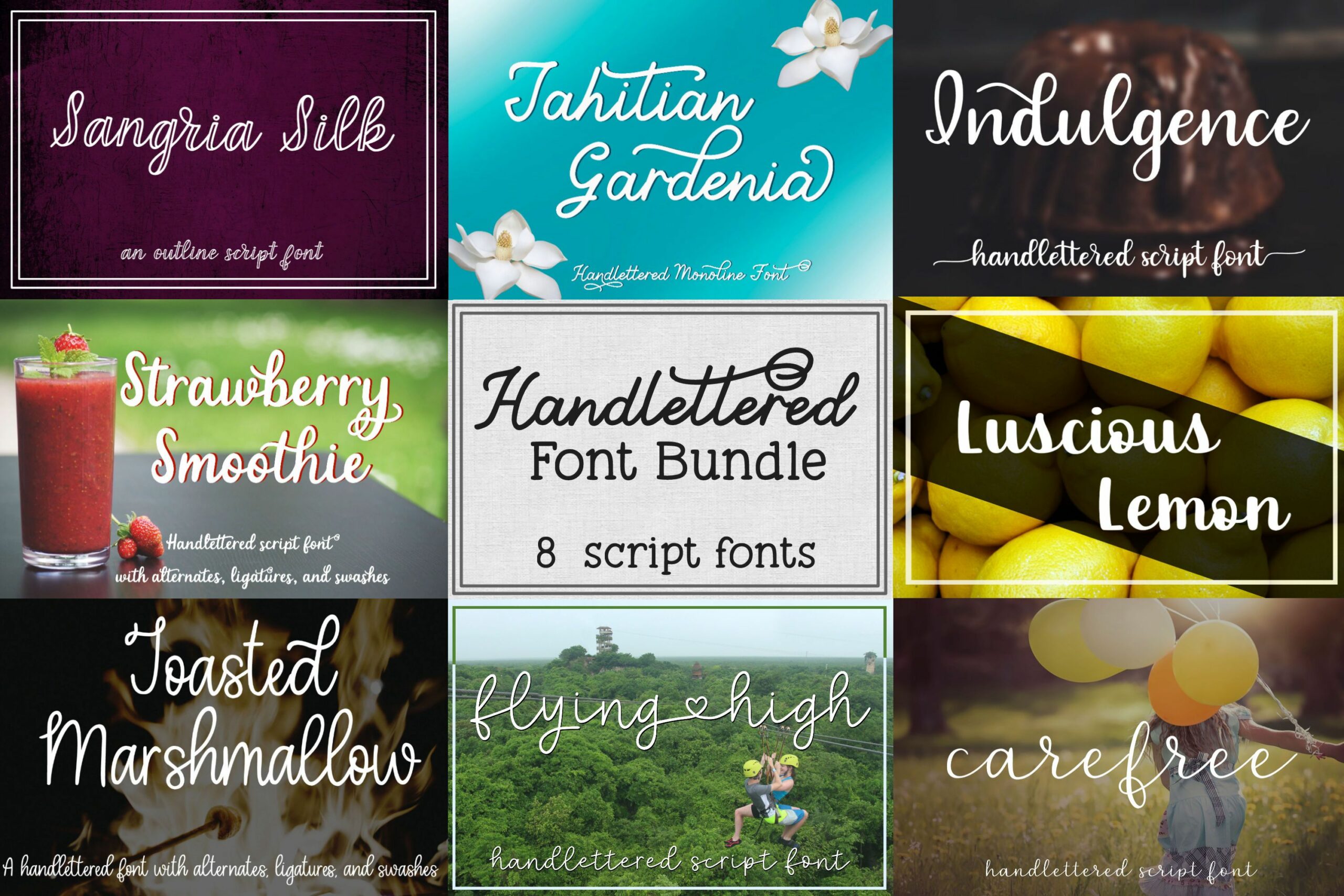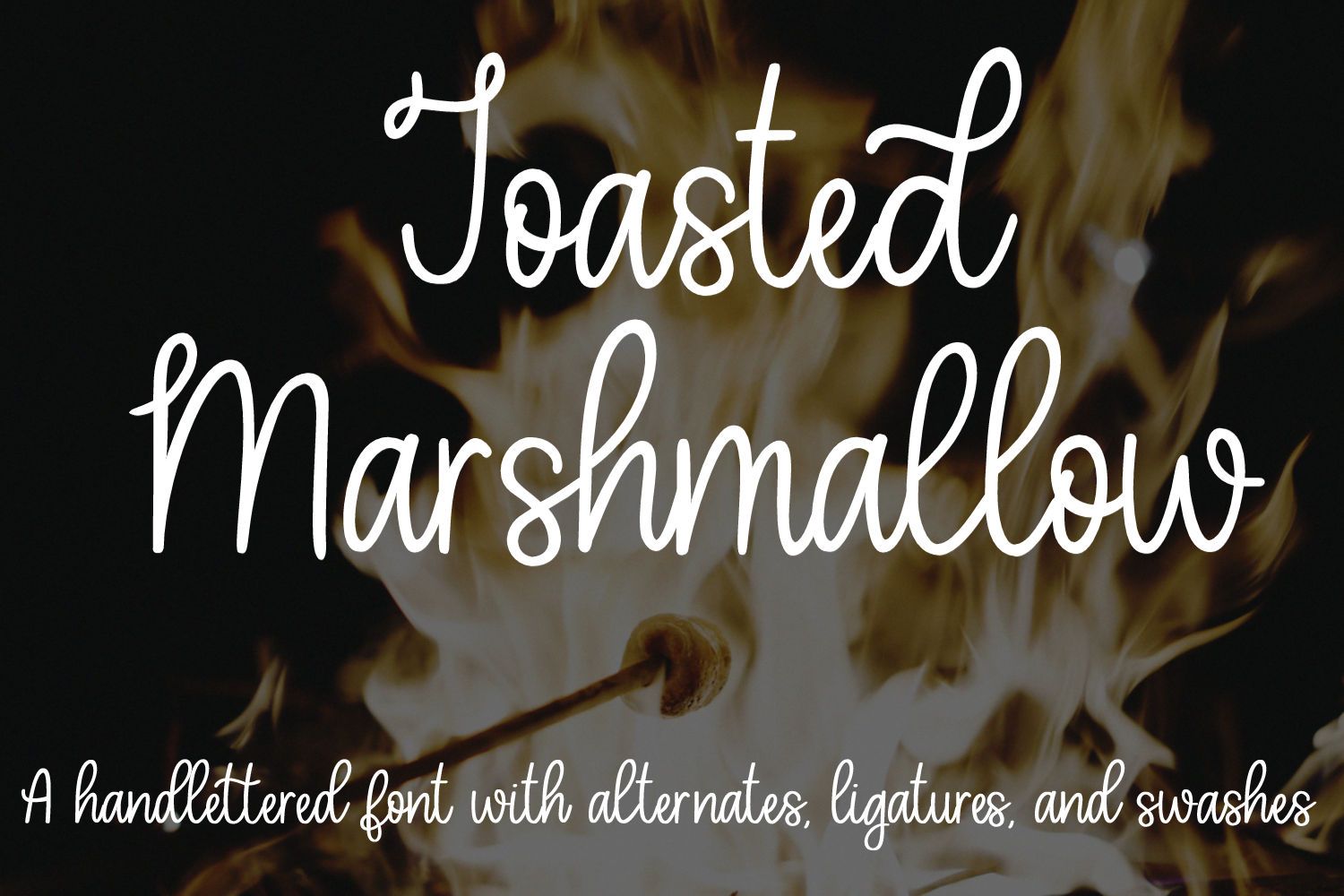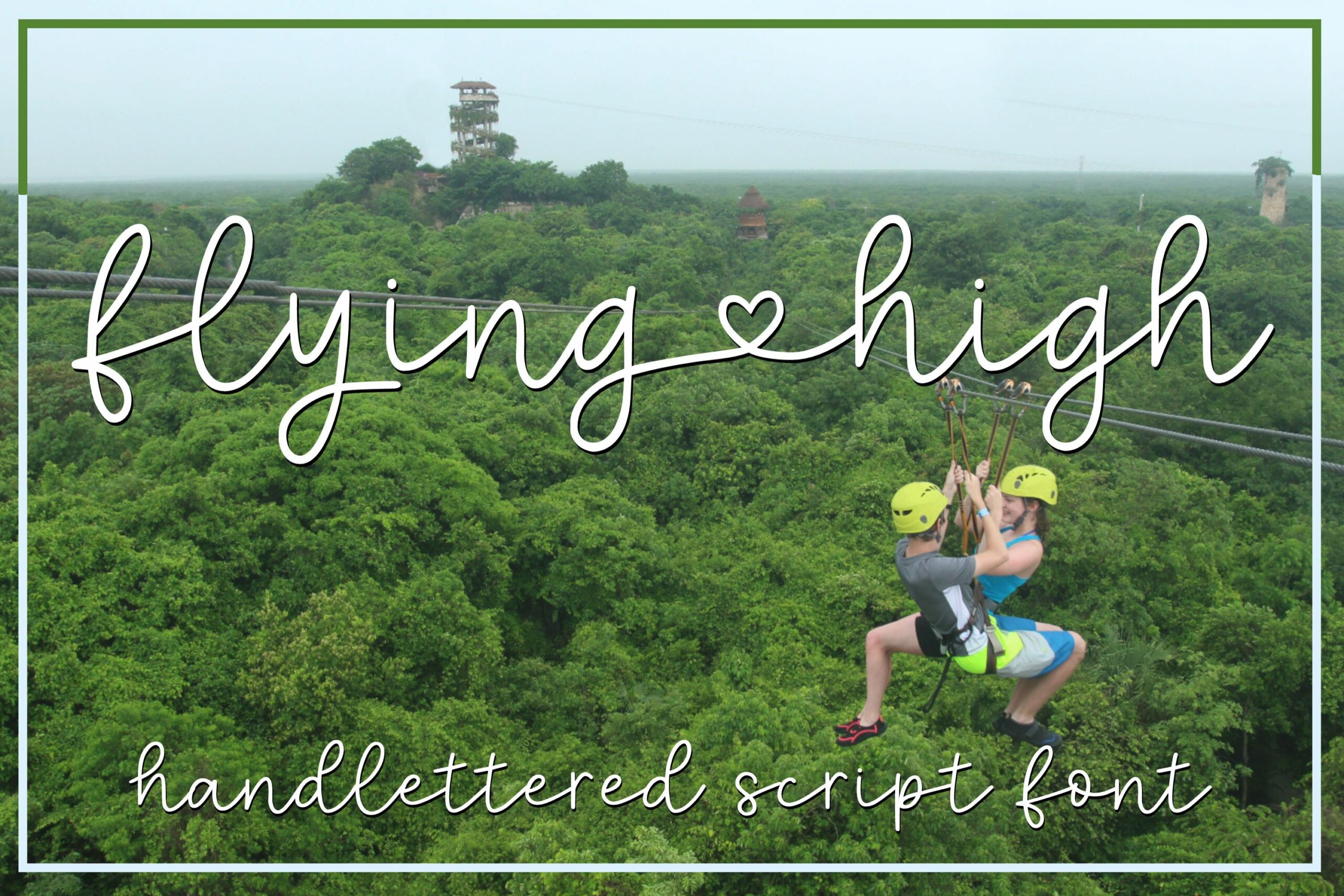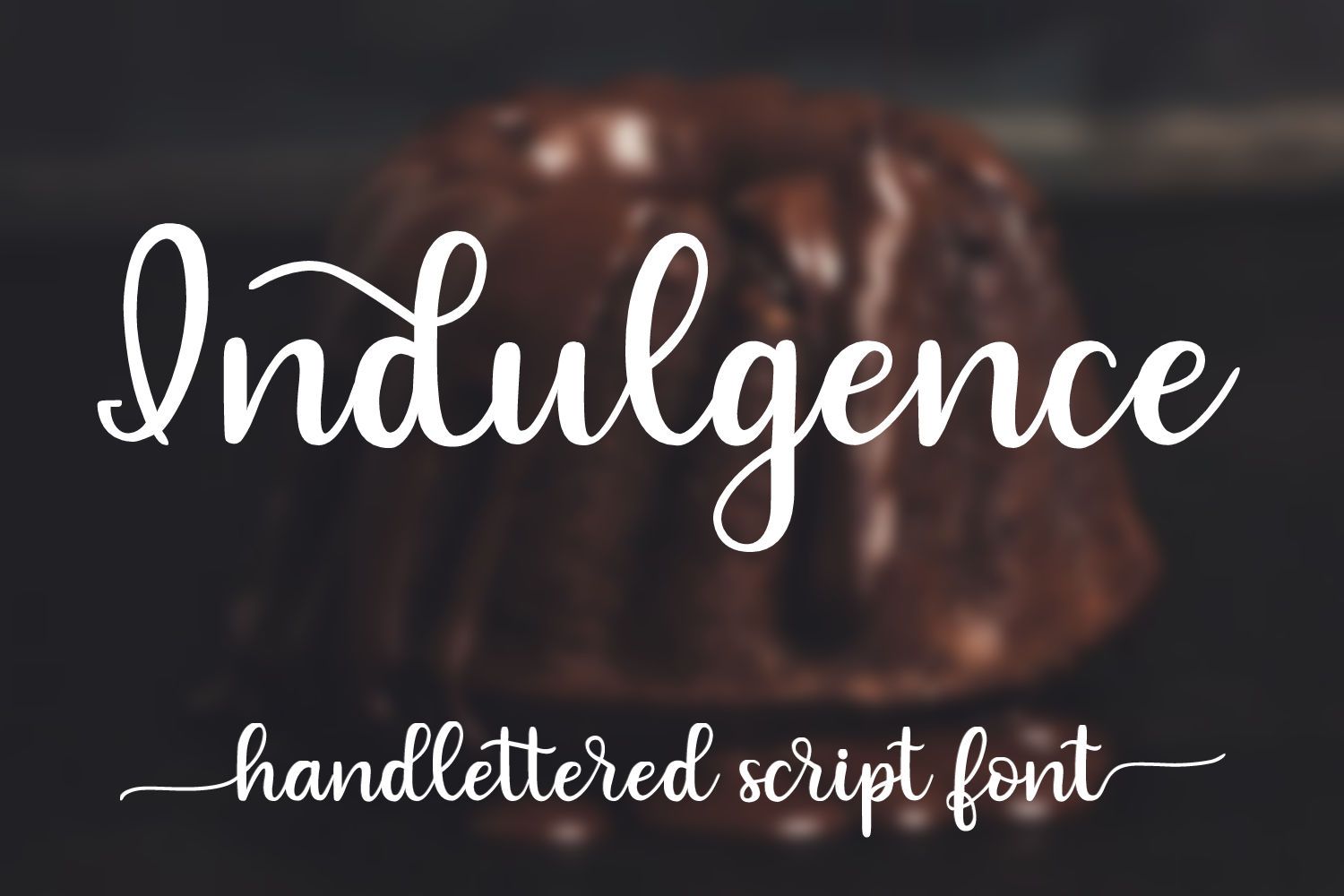
About Handlettered Font Bundle – 8 Script Fonts
I bundled 8 of my handlettered script fonts together to create this Handlettered Font Bundle!!! With this bundle, you will get the full version of each of the fonts listed below. Indulgence Flying High Luscious Lemon Strawberry Smoothie Toasted Marshmallow Carefree Tahitian Gardenia Sangria Silk